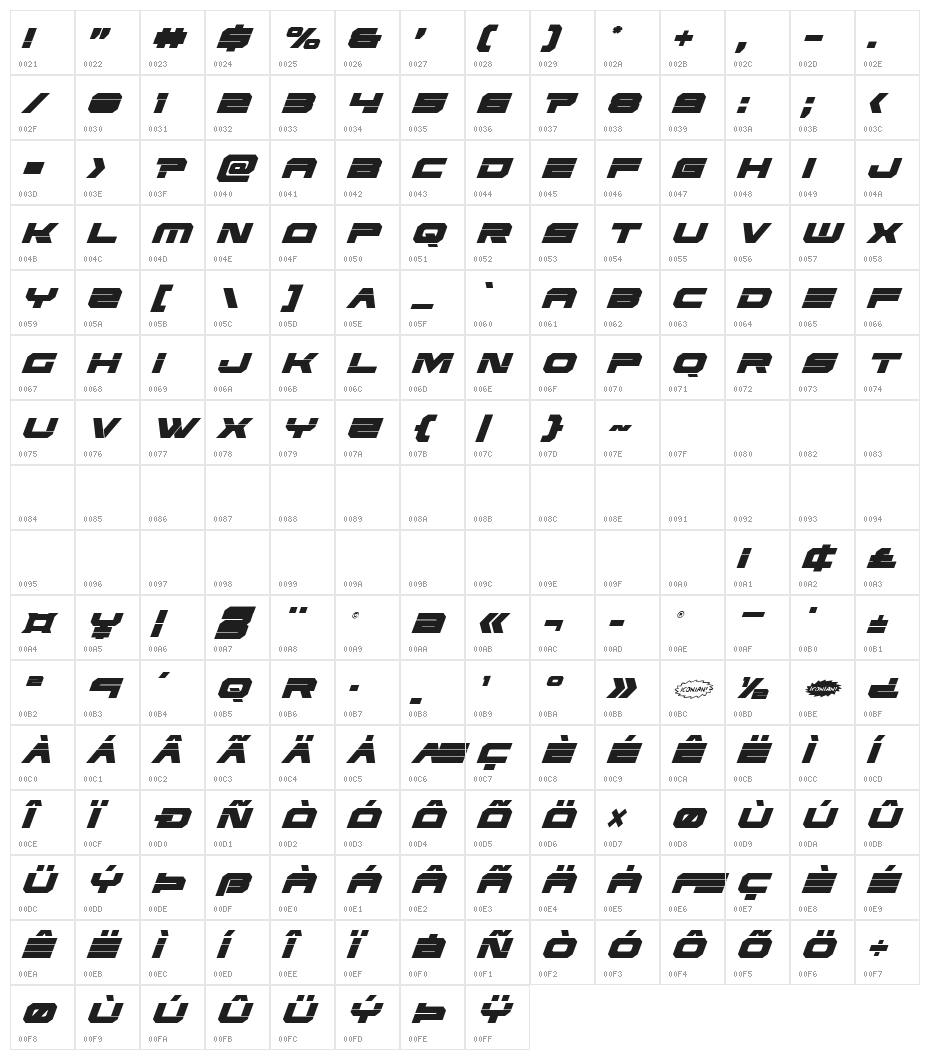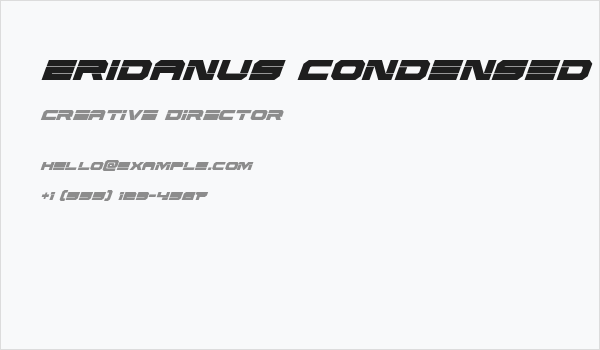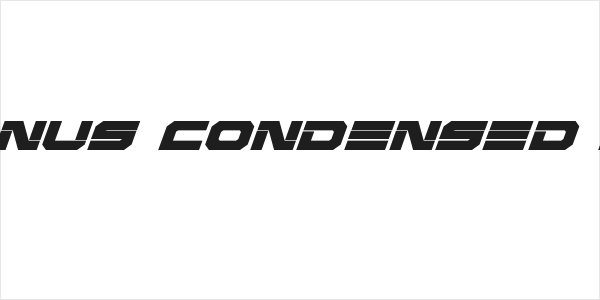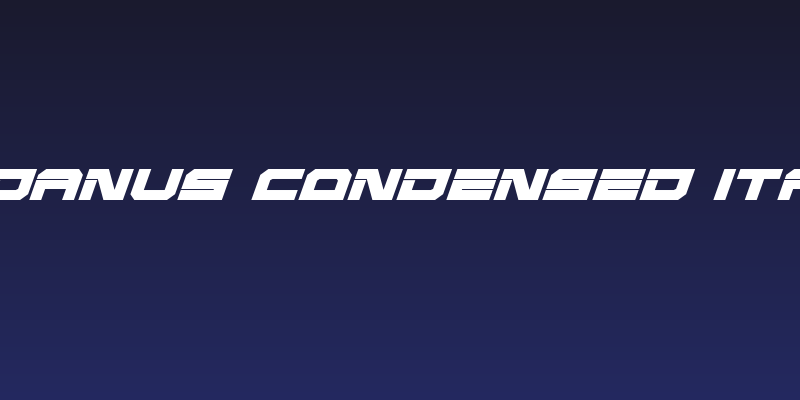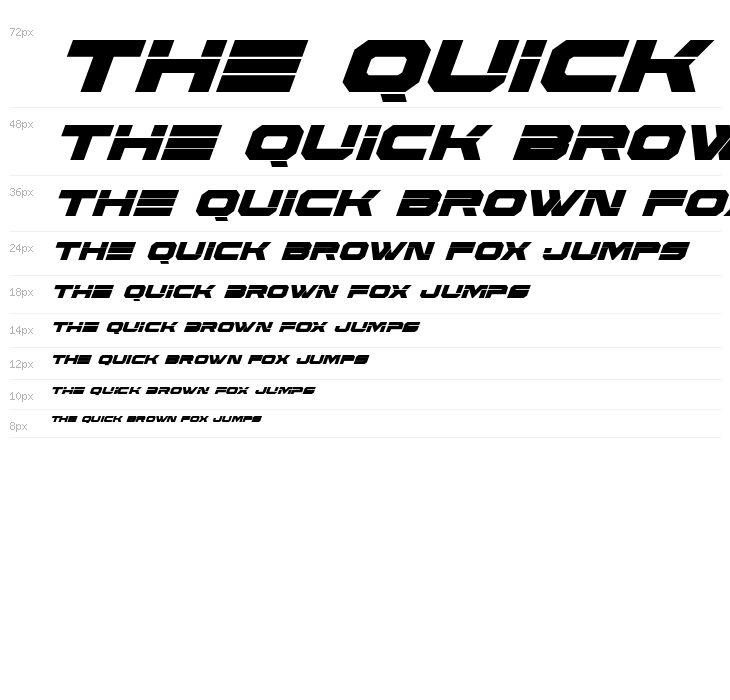
Eridanus Condensed Italic Font
Eridanus Condensed Italic Description
This font features a bold, futuristic design with a condensed and italicized style. The characters are angular and geometric, giving a sense of speed and modernity. The uppercase and lowercase letters maintain a consistent height, enhancing the uniformity of the typeface. Numbers and special characters are designed with the same angular precision, ensuring a cohesive look across all elements. The overall appearance is sleek and dynamic, making it suitable for projects that require a modern and edgy aesthetic.
Proposed ProjectsIdeal for technology branding, sports team logos, video game titles, and sci-fi themed projects.